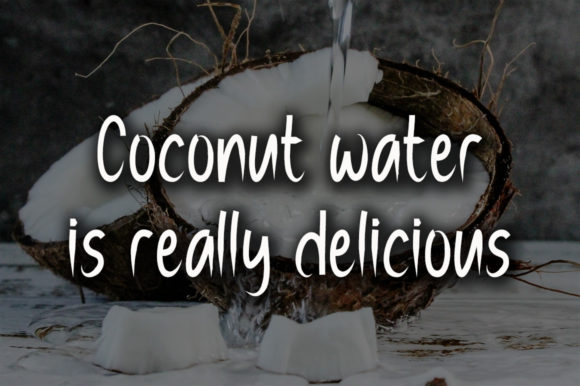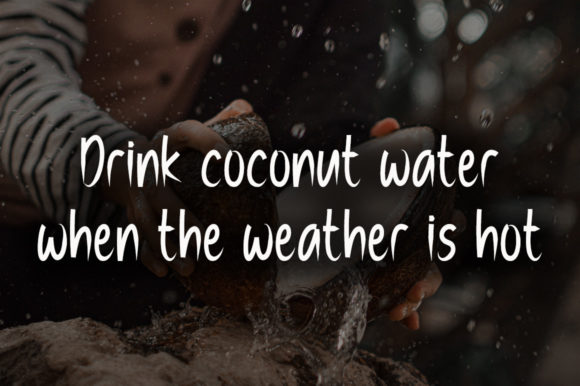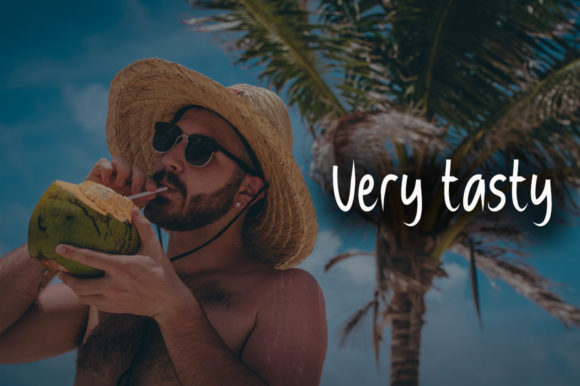
Coconut Water Font: The Refreshing Choice for Your Designs
Are you tired of using the same old fonts for your designs? Do you want to add a touch of fun and playfulness to your creations? Look no further than Coconut Water Font, a cool and uniquely designed display font that’s perfect for cartoon-related designs, children’s games, and any project that requires a lovely touch.
What is Coconut Water Font?
Coconut Water Font is a display font that’s inspired by the refreshing and tropical flavors of coconut water. This font is designed to bring a sense of fun and playfulness to your designs, making it perfect for projects that require a youthful and energetic vibe.
Key Features of Coconut Water Font
- Unique Design: Coconut Water Font has a unique and quirky design that’s sure to stand out from the crowd. Its irregular shapes and bold lines give it a distinctive look that’s both fun and eye-catching.
- Playful Feel: This font has a playful feel that’s perfect for designs that require a lighthearted and carefree touch. It’s ideal for children’s games, cartoon-related designs, and any project that requires a sense of fun and adventure.
- Versatile: Coconut Water Font is a versatile font that can be used for a wide range of projects, from digital designs to print materials. It’s perfect for designers, crafters, and anyone who wants to add a touch of personality to their creations.
- Easily Readable: Despite its playful design, Coconut Water Font is easily readable, making it perfect for headlines, titles, and short paragraphs of text.
Uses of Coconut Water Font
Coconut Water Font is a versatile font that can be used for a wide range of projects, including:
- Cartoon-related designs: This font is perfect for cartoon-related designs, such as character designs, comics, and animated videos.
- Children’s games: Coconut Water Font is ideal for children’s games, such as puzzle games, adventure games, and educational games.
- Branding and packaging: This font can be used for branding and packaging designs that require a fun and playful touch.
- Digital designs: Coconut Water Font is perfect for digital designs, such as social media graphics, blog posts, and website headers.
- Print materials: This font can be used for print materials, such as posters, flyers, and brochures.
Why Choose Coconut Water Font?
There are many reasons why you should choose Coconut Water Font for your designs. Here are a few:
- Unique design: Coconut Water Font has a unique design that’s sure to stand out from the crowd.
- Playful feel: This font has a playful feel that’s perfect for designs that require a lighthearted and carefree touch.
- Versatile: Coconut Water Font is a versatile font that can be used for a wide range of projects.
- Easily readable: Despite its playful design, Coconut Water Font is easily readable, making it perfect for headlines, titles, and short paragraphs of text.
How to Use Coconut Water Font
Using Coconut Water Font is easy. Here are a few tips:
- Choose the right size: Choose a size that’s large enough to be easily readable, but small enough to fit your design.
- Experiment with colors: Coconut Water Font looks great in a variety of colors, so don’t be afraid to experiment and find the perfect color for your design.
- Pair with other fonts: Coconut Water Font can be paired with other fonts to create a unique and interesting design.
| Font Name | Coconut Water Font |
| Author | morningtimestudio |
Coconut Water Font is a cool and uniquely designed display font that’s perfect for cartoon-related designs, children’s games, and any project that requires a lovely touch. Its playful feel, versatile design, and easily readable text make it a great choice for designers, crafters, and anyone who wants to add a touch of personality to their creations.